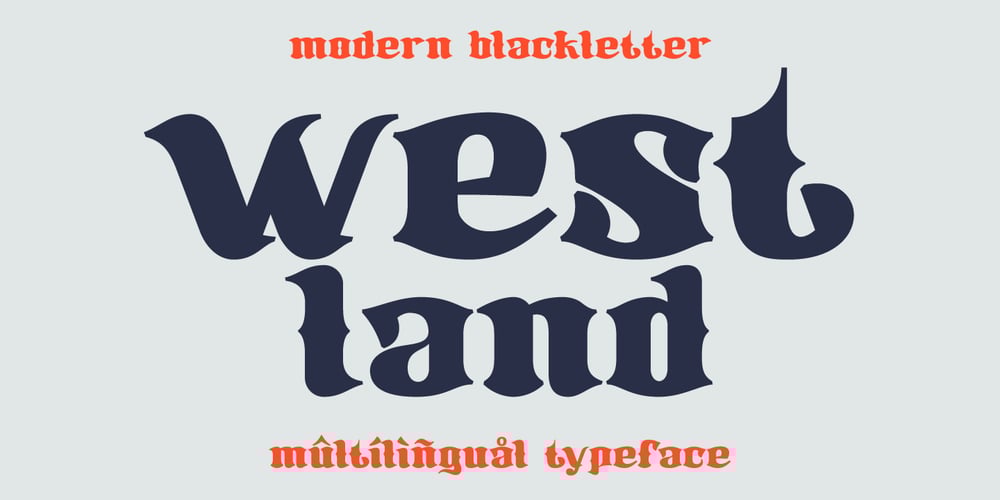
Westland
Westland font
Westland Font Family was designed by Roman Korolev and published by Kaer. Westland contains 1 styles and family package options. Westland is a modern blackletter typeface with bend serifs. This font is perfect to use in any alcohol labels, retro style logos, luxury identity, and more.What’s included? Uppercase and lowercase Multilingual support Numbers Symbols Punctuation Ligatures I hope you enjoy with this fonts. If you have a question or problem please contact me: kaer.pro@gmail.comThank you!